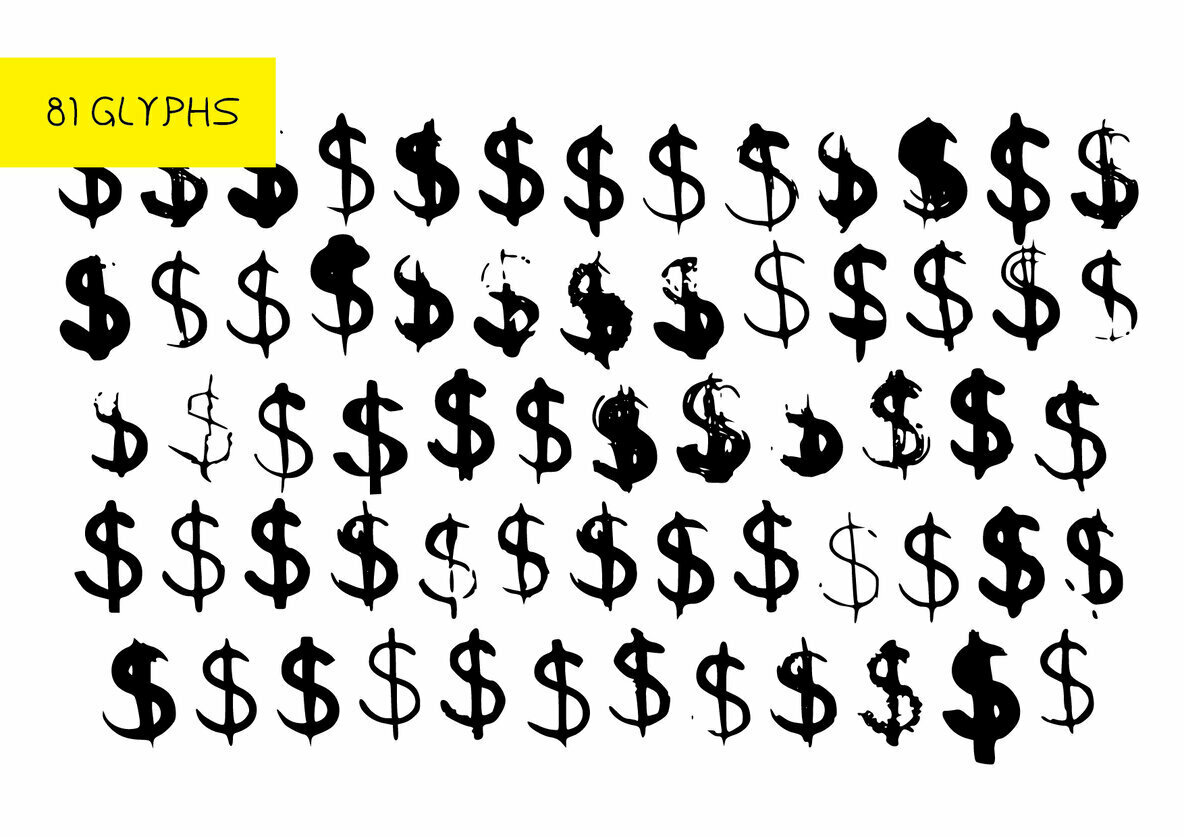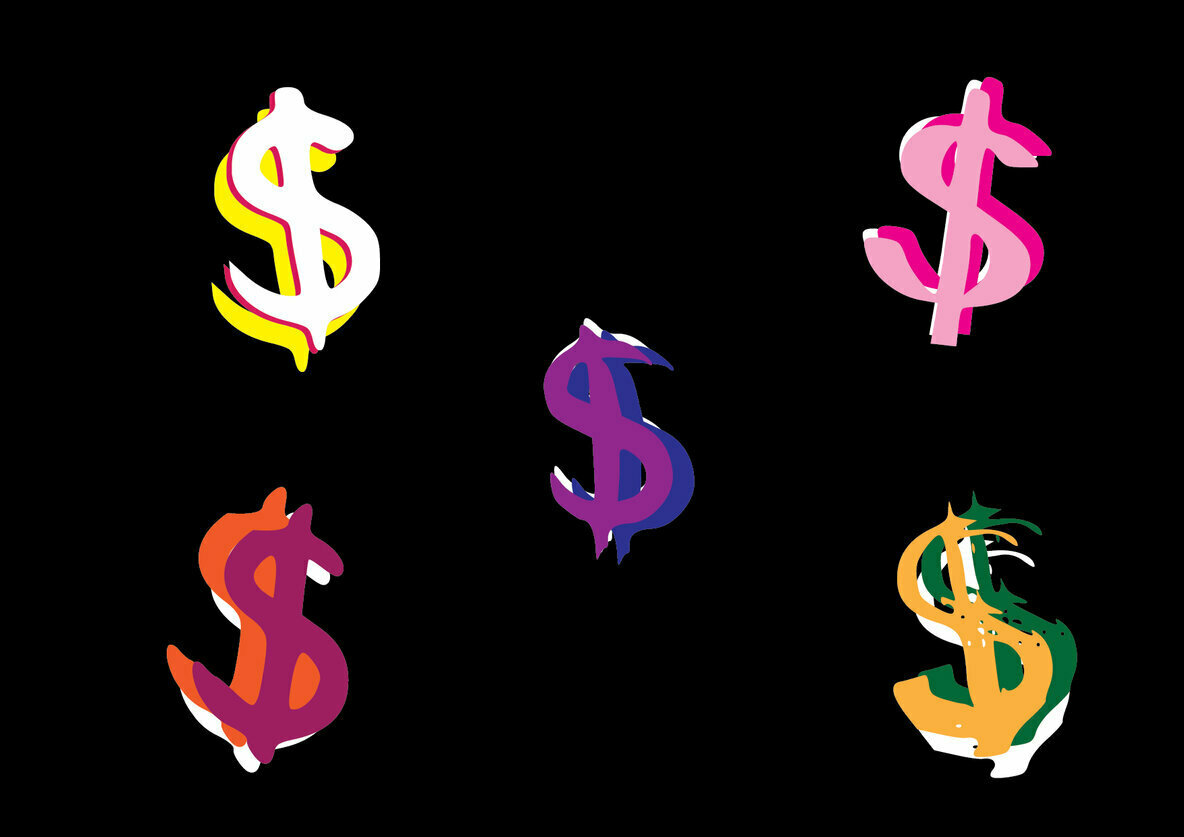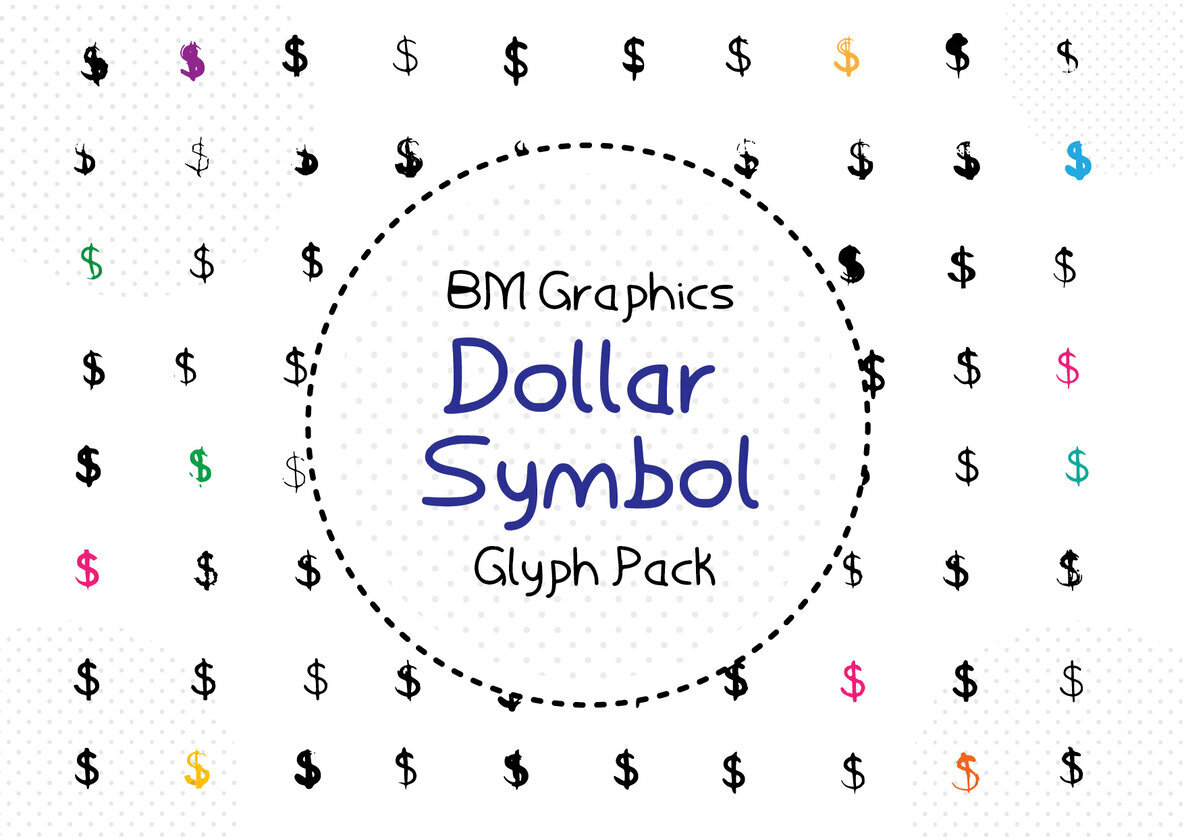
BM Graphics - Dollar Symbol Font
BM Graphics Dollar Symbol
BM Graphics - Dollar Symbol is a stunning dingbats font that combines 81 Glyphs. Use it for any design project that requires a hand drawn look and feel, there are so many to choose from!